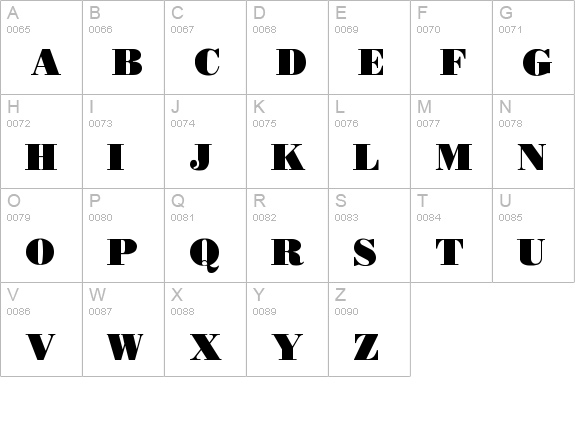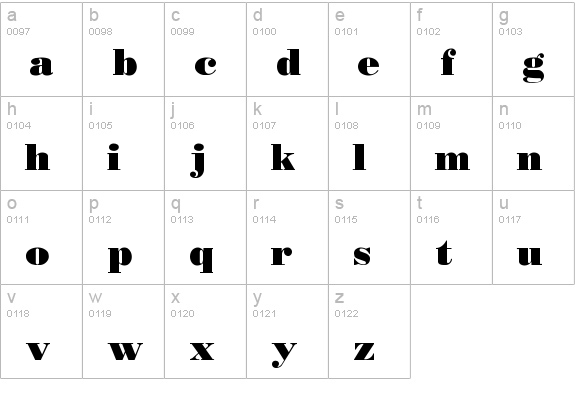
Boston Black is a maximum-weight, dramatic variant in the Boston typeface family \xE2\x80\x94 well suited to maximum-impact headlines, posters, and packaging.
Boston Black font is a bold and striking typeface that exudes elegance and sophistication. Its clean lines and modern aesthetic make it perfect for a wide range of design projects, from branding to editorial design. The strong, bold strokes of Boston Black font command attention and add a touch of drama to any design. What's even better is that Boston Black font is available for free download at FontsMarket.com. This means you can easily access this stylish and versatile font to elevate your projects without having to spend a dime. Don't miss out on the opportunity to add Boston Black font to your font library and enhance your designs with its timeless appeal. Download it today and see for yourself how this font can take your designs to the next level.